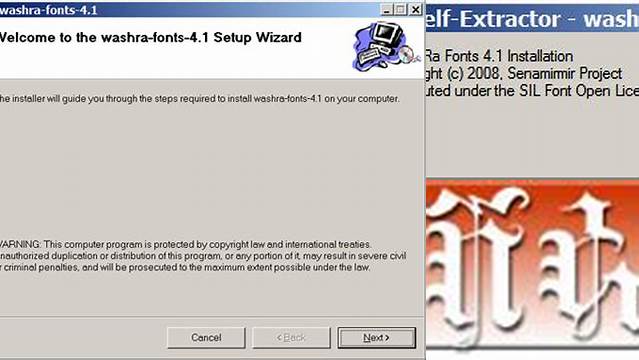
Unveiling Washra Fonts 4.1: Your Guide To Typography
Hey guys! Ever stumbled upon a font that just speaks to you? Well, if you're into the art of typography, you're in for a treat. We're diving deep into Washra Fonts 4.1, a font family that’s been making waves in the design world. This isn't just about picking a font; it's about crafting a visual experience. So, buckle up as we explore the ins and outs of Washra Fonts 4.1, from its core features to how you can make it work for you.
1. Introduction to Washra Fonts 4.1: What's the Buzz?
Alright, let's kick things off with the basics. Washra Fonts 4.1 is a font family known for its versatility and aesthetic appeal. It’s a go-to choice for designers looking to make a statement. This isn't just another font; it's a carefully crafted collection designed to offer a range of styles and weights. Whether you're a seasoned graphic designer or just starting out, understanding Washra Fonts 4.1 is key. The buzz around Washra Fonts 4.1 isn't just hype; it's a testament to its adaptability and design prowess. It's become a staple for various design projects, from web design to print materials. The goal is to provide a seamless experience that empowers you to bring your creative visions to life. This goes beyond just looking good; it’s about creating something that communicates effectively. The features aren't just about aesthetics; they're about functionality and impact. The adaptability means it can fit into many different projects, letting your creativity take center stage. So, before we dive into the nitty-gritty, consider this your primer. You’re about to unlock a world of possibilities with Washra Fonts 4.1.
2. Key Features of Washra Fonts 4.1: What Makes It Stand Out?
So, what’s the secret sauce? What makes Washra Fonts 4.1 stand out from the crowd? Well, it's a combination of several key features that work together to make it a design powerhouse. One of the main attractions is its diverse range of styles. From bold and attention-grabbing to elegant and understated, Washra Fonts 4.1 offers a variety of options. This adaptability is crucial for any designer, because you need to cater to different design needs. Beyond style, the legibility of Washra Fonts 4.1 is another big plus. The clear and readable letterforms ensure that your message is easily understood by your audience. Moreover, Washra Fonts 4.1 boasts a high level of customization. You can adjust the weight, size, and spacing to create the exact look and feel you need. This is super important when you need to align the font with the overall style of your project. You’re not just picking a font; you're crafting an experience. Plus, let’s not forget its excellent kerning and spacing, which is critical for creating a polished and professional finish. All these features work together to make Washra Fonts 4.1 a compelling choice for any designer, no matter the project.
2.1. Font Weights and Styles: Exploring the Washra Font Family
Alright, let's get specific, shall we? When we talk about Washra Fonts 4.1, we're not just talking about one font; we're talking about a family. The magic lies in its variety of weights and styles. From the ultra-light, which is perfect for delicate headlines and subtle details, to the extra-bold, which demands attention, the options are vast. Each weight serves a distinct purpose. Understanding these differences is key to mastering Washra Fonts 4.1. It’s about selecting the right style to match the tone of your project. For instance, if you’re designing a website for a law firm, you might lean towards the regular or medium weights to convey a sense of professionalism and reliability. On the other hand, if you’re creating a poster for a music festival, you might opt for a bolder weight to capture the energy and excitement of the event. Moreover, the different styles extend beyond just weight. You might find variations like italics for emphasis, condensed versions for space efficiency, or extended versions for a more dramatic flair. The styles within Washra Fonts 4.1 give you the power to tailor your typography to perfectly match your project's goals. It’s about creating a cohesive and visually appealing experience for your audience.
2.2. Legibility and Readability: Why Washra Fonts 4.1 Shines
One of the most crucial aspects of any font is its legibility, and that's where Washra Fonts 4.1 truly shines. Legibility is all about how easy a font is to read, and it directly impacts the success of your design. Let’s face it, a beautiful font is useless if nobody can read it. Washra Fonts 4.1 is designed with readability in mind, ensuring that your message gets across without a hitch. The font’s letterforms are crafted to be distinct and clear, so the reader doesn't have to strain their eyes to decipher the text. The spacing between letters and words is carefully calibrated to enhance readability. This is especially critical for large blocks of text, such as body copy in articles or books. The goal is to keep the reader engaged, not to frustrate them with a difficult-to-read font. Readability is not just about the design of the individual characters, but also how they interact with each other. Proper kerning and spacing are crucial components of a readable font. This means the spacing between each letter is adjusted to create a balanced and visually pleasing text. In short, when you choose Washra Fonts 4.1, you’re not just choosing a beautiful font; you're choosing a font designed to be read and understood effortlessly.
2.3. Customization Options: Tailoring Washra Fonts 4.1 to Your Needs
One of the best parts about using Washra Fonts 4.1 is the ability to tailor it to your specific needs. The customization options allow you to adjust the font to perfectly fit your project. It is essential for any designer wanting a unique touch to their work. The weight of the font is one of the primary things you can customize. You can choose from a range of weights, from ultra-light to extra-bold, enabling you to emphasize certain parts of your text. You can also adjust the size. The font's size plays a massive role in its impact. Larger fonts can grab attention, while smaller fonts are ideal for body copy. You can experiment with different sizes until you find the perfect balance. And let’s not forget about spacing! Adjusting the letter spacing (kerning) and line spacing (leading) can dramatically change the appearance of your text. Tight spacing can make text look compact, while generous spacing can give it an airy feel. These fine-tuning options empower you to create a font that truly embodies your creative vision. It's about more than just selecting a font; it's about crafting an experience that feels unique and tailored to your needs. With Washra Fonts 4.1, customization isn't just a feature; it’s a core part of the design experience.
3. Applications of Washra Fonts 4.1: Where Can You Use It?
So, where can you put Washra Fonts 4.1 to work? The beauty of this font is in its versatility, which makes it perfect for a huge range of applications. One of the most common applications is in web design. Its readability and stylish appearance make it an excellent choice for websites, blogs, and online platforms. You can use it for headlines, body text, and even navigation elements. Print materials are another area where Washra Fonts 4.1 really shines. Posters, brochures, and flyers can all benefit from its clean and modern look. In addition, Washra Fonts 4.1 is a great choice for branding and corporate identities. It offers a professional and sophisticated look that can elevate your brand's image. The key is to experiment and find the best fit for your specific project. Whether you're designing a website, creating marketing materials, or working on a branding project, Washra Fonts 4.1 is a fantastic tool to have in your design toolkit. It’s adaptable enough to handle various design requirements. The possibilities are almost endless.
3.1. Web Design and UI/UX: Washra Fonts 4.1 for Digital Experiences
Let's talk about the digital world, shall we? Washra Fonts 4.1 is a fantastic option for web design and UI/UX projects. It's perfect for creating websites and applications that are not only visually appealing but also highly functional and easy to use. The legibility of Washra Fonts 4.1 is a huge plus in the online environment. It's designed to be read easily on screens of all sizes. This is critical for ensuring your audience can effortlessly absorb your content. It's not just about making things look good; it’s about improving the user experience. Washra Fonts 4.1 helps you create a clean, modern look that resonates with users. You can use it for everything from headlines and body text to navigation menus and call-to-action buttons. Moreover, with the range of weights and styles available, you can use Washra Fonts 4.1 to establish a visual hierarchy. This means emphasizing important information and guiding users through your content effectively. The adaptability of Washra Fonts 4.1 also makes it ideal for responsive design. It looks great on desktops, tablets, and smartphones, which ensures a consistent brand experience across all devices. Whether you're designing a simple blog or a complex e-commerce platform, Washra Fonts 4.1 can help you create a seamless and engaging user experience.
3.2. Print Design: Washra Fonts 4.1 in Posters, Brochures, and More
Let's not forget the world of print! Washra Fonts 4.1 is just as effective when it comes to posters, brochures, and other print materials. Its clarity and versatility make it a great choice for any print project. First, let’s talk about legibility. The clean letterforms of Washra Fonts 4.1 ensure that your message can be easily read, even in smaller sizes or on busy backgrounds. This makes it ideal for a wide range of applications, from event posters to product brochures. When creating print materials, the right font can make all the difference. The weight of the font can be adjusted to highlight the important information. The diverse styles allow you to match the design style of your project. Washra Fonts 4.1 enables you to experiment and find the perfect balance between aesthetics and readability. This can help convey your message to the target audience. Plus, its adaptability means it works well with different paper stocks, ink colors, and printing techniques. So, if you're looking to create eye-catching posters, informative brochures, or any other print materials, Washra Fonts 4.1 can be a valuable asset.